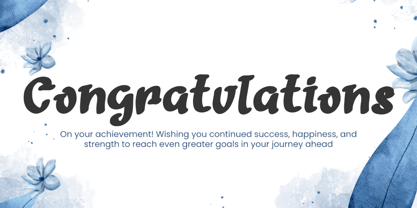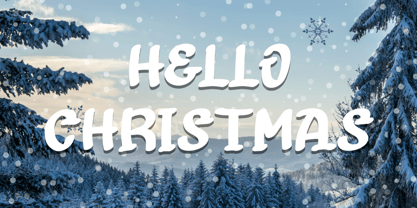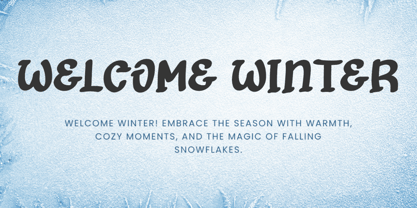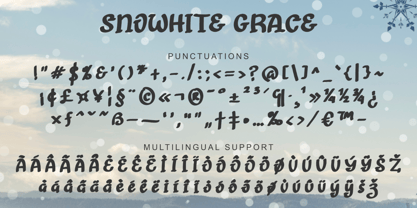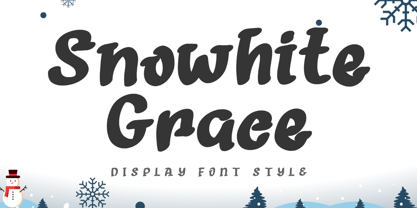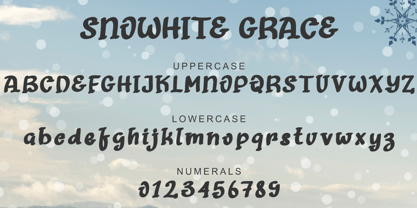
Snowhite Grace
by Yoga Letter
The Snowhite Grace Font Family was designed by Isroni Yoga Prasetya and published by Yoga Letter. Snowhite Grace contains 1 styles. More about this family
"Snowhite Grace" is a unique and playful display font. It features uppercase and lowercase letters, numerals, punctuation, and multilingual support. It's perfect for Christmas, banners, posters, print, branding, stickers, logos, Valentine's Day, holidays, winter, vacation, summer, Easter, weddings, halloween, Thanksgiving, spring, comics, cartoons, and more.